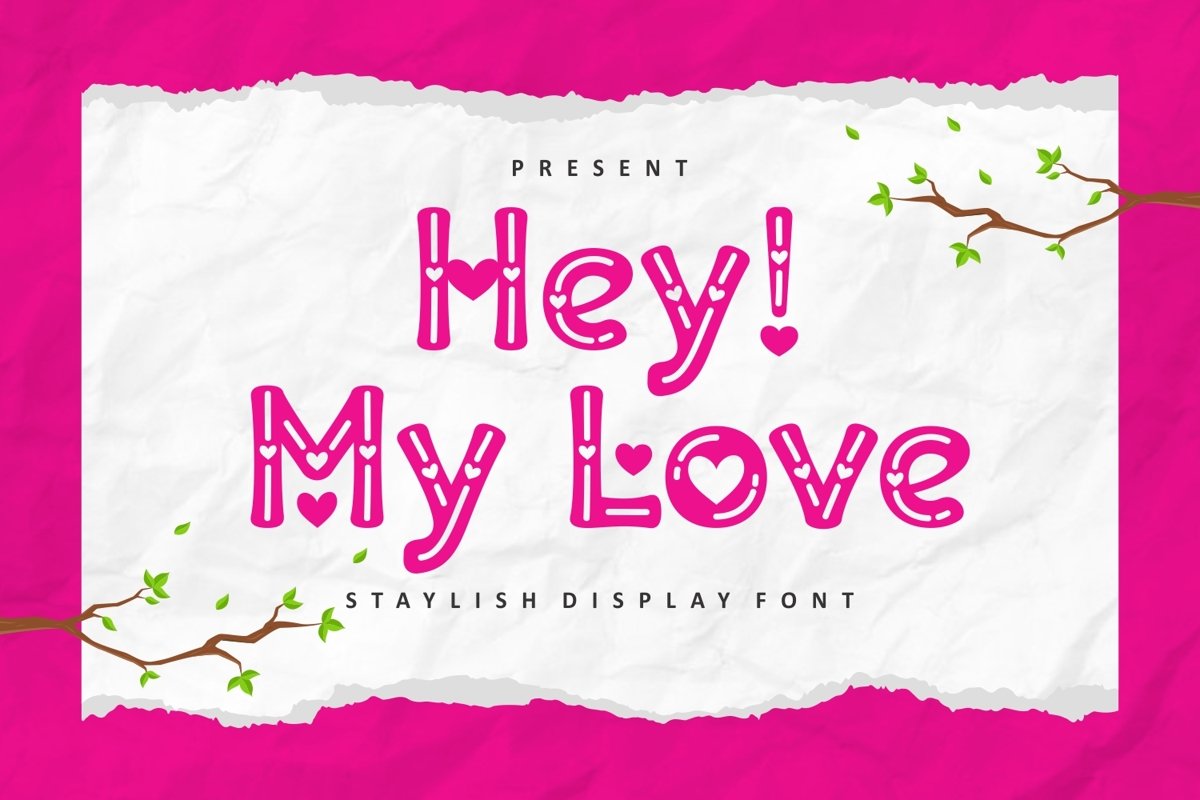
Hey! My Love is a stylish sans serif display come with crafted themes. We wanted to create the most decorative characters. The shape of characters have cute pattern. It matches applies in some designs such as the logotype, brand, packaging, quotes, cute poster, kids shirt, cover book, birthday invitation and more custom design. The features uppercase, lowercase, numeral, punctuation & symbol, multilingual support, PUA encoded (fully accessible without additional design software).
Hey! My Love